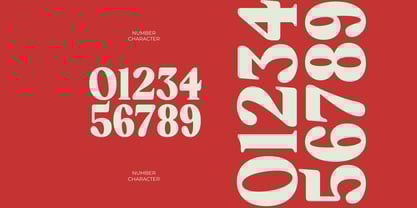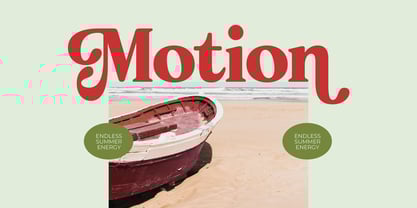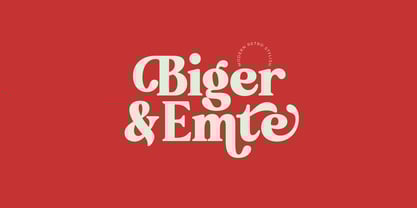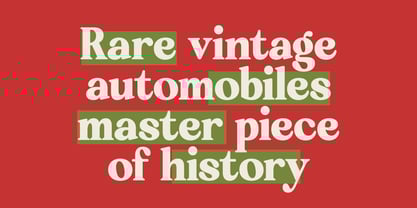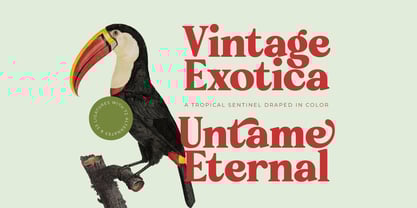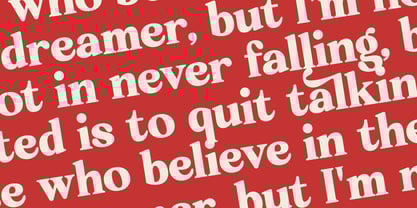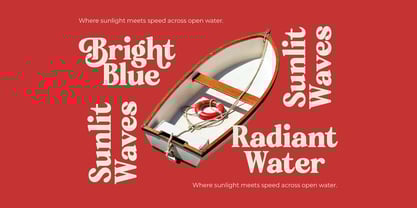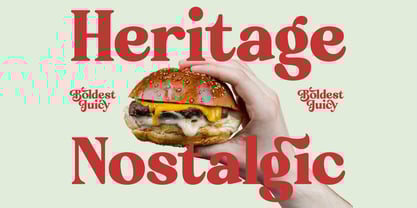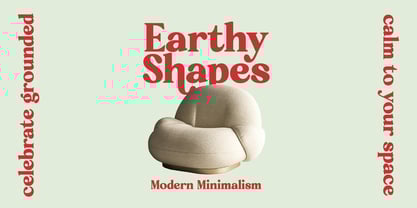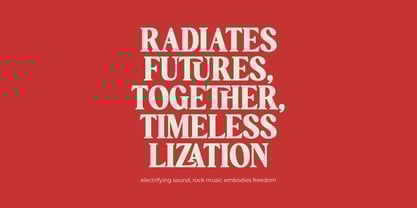
Rakuy Magist
by Timelesstype Studio
The Rakuy Magist Font Family was designed by Heru Utama Putra and published by Timelesstype Studio. Rakuy Magist contains 2 styles and family package options. More about this family
Rakuy Magist - Modern Retro Stylish , from Timelesstype , Suitable for any projects such as: logos, branding projects, homeware designs, product packaging, mugs, quotes, posters, shopping bags, t-shirts, book covers, name card, invitation cards, greeting cards, label, photography, watermark, special events, and all your other luxury and beautiful projects that need a Luxury Serif taste.